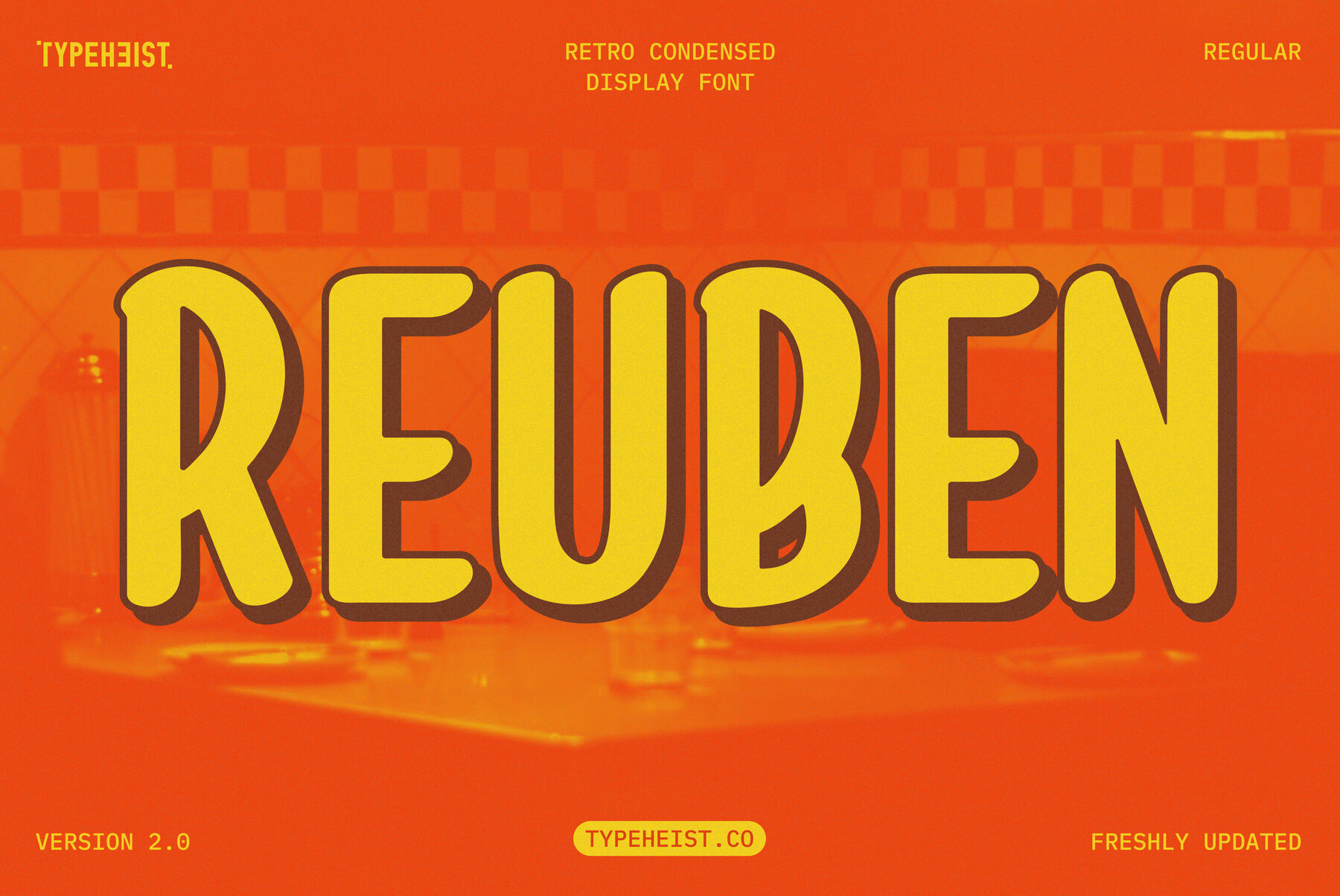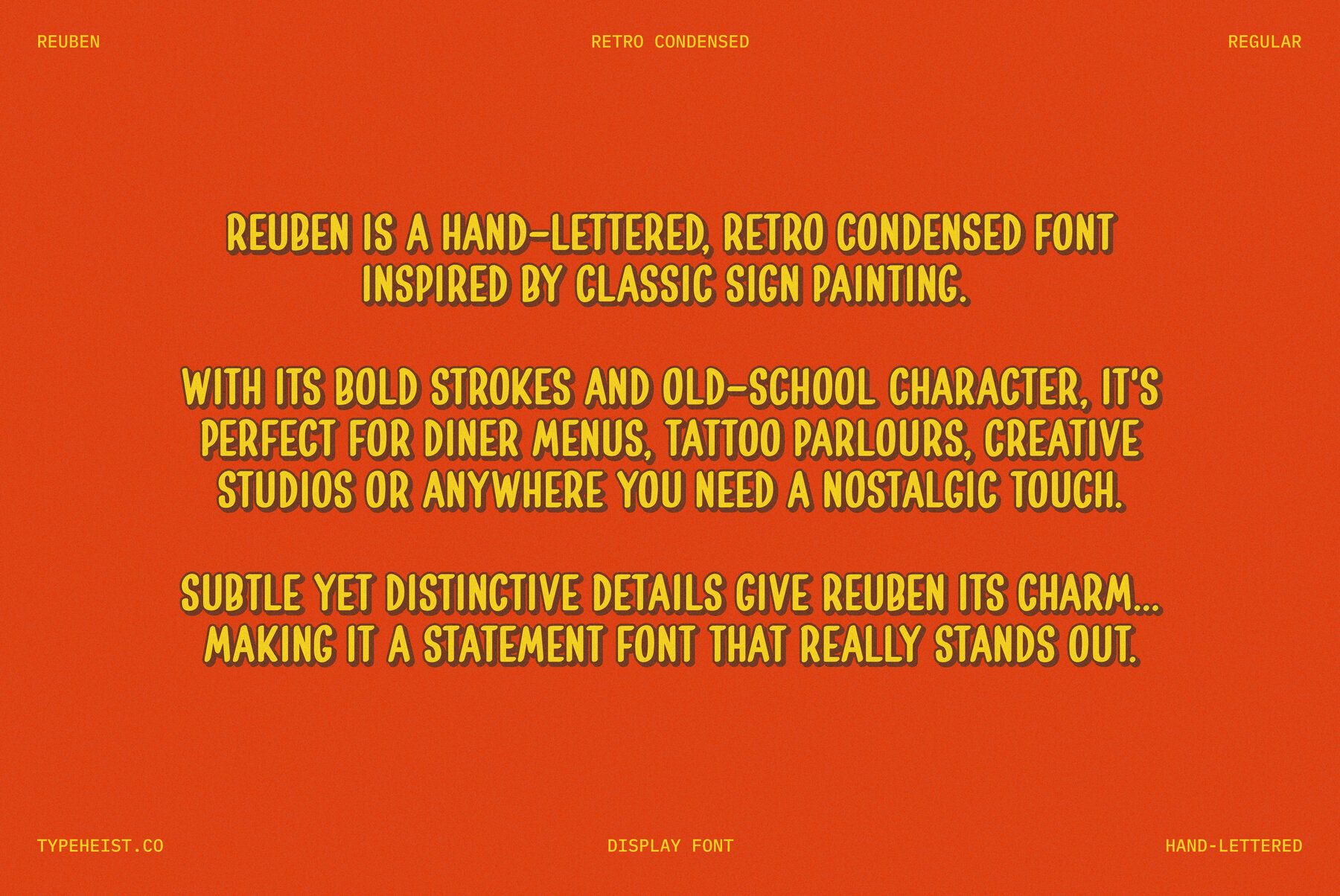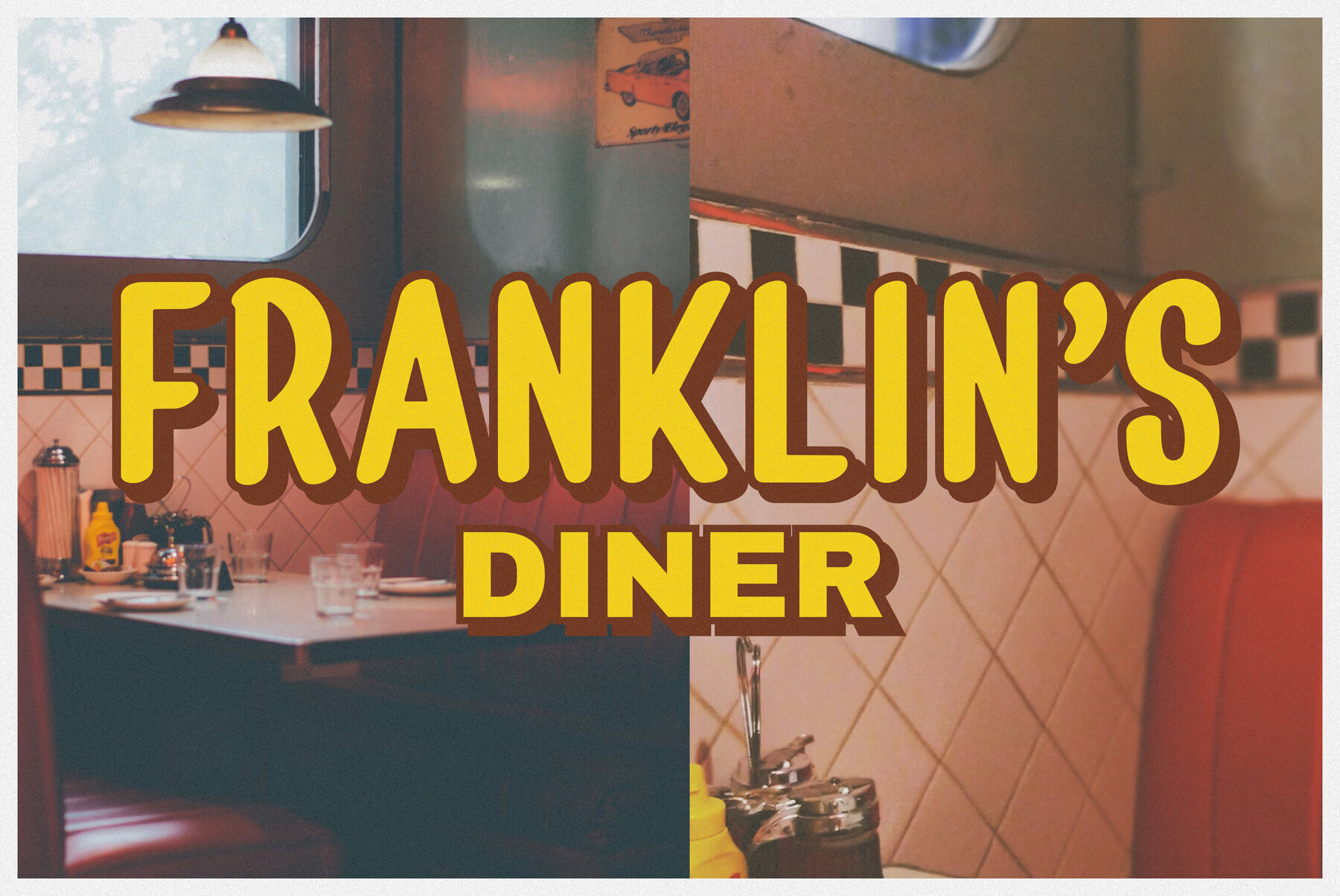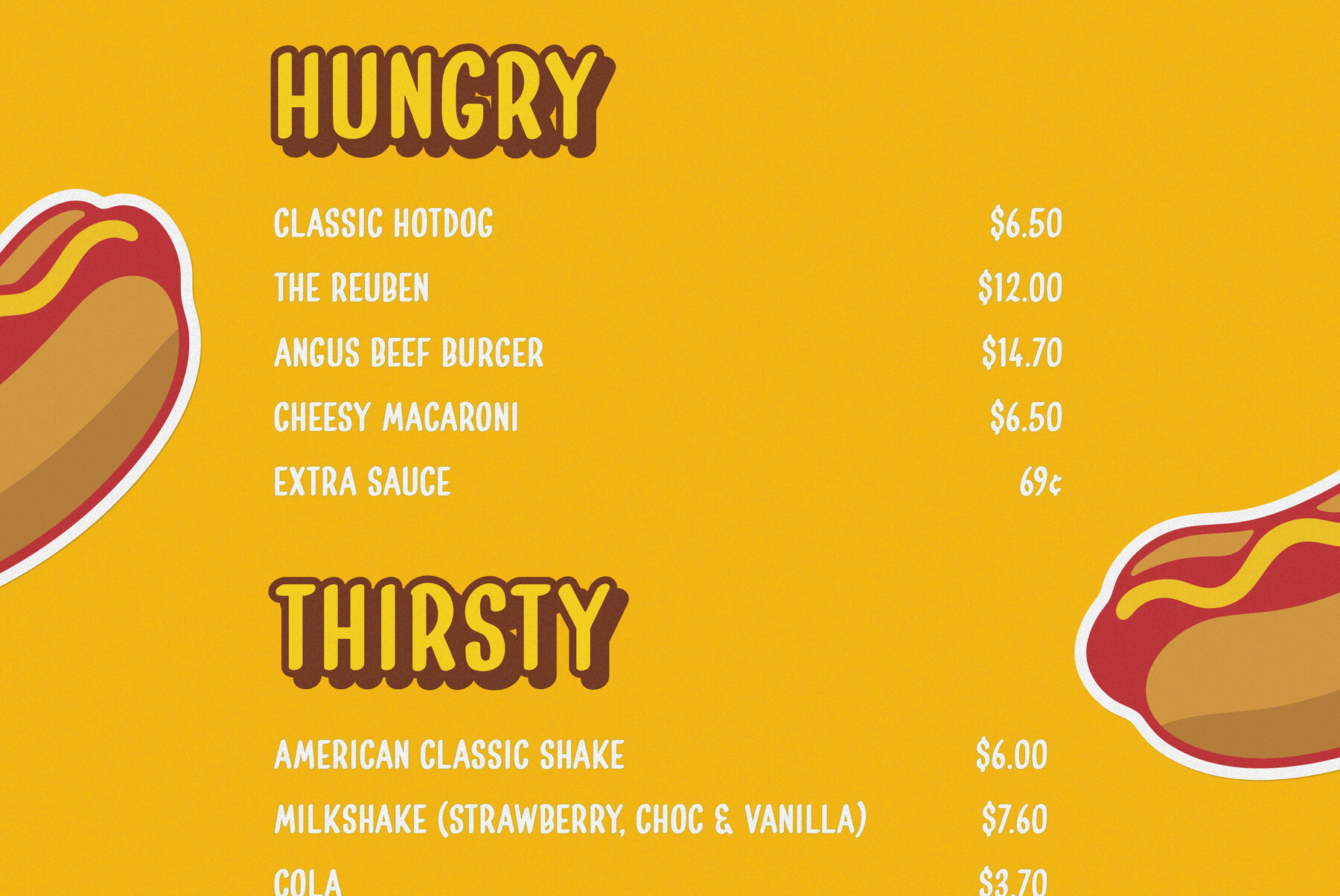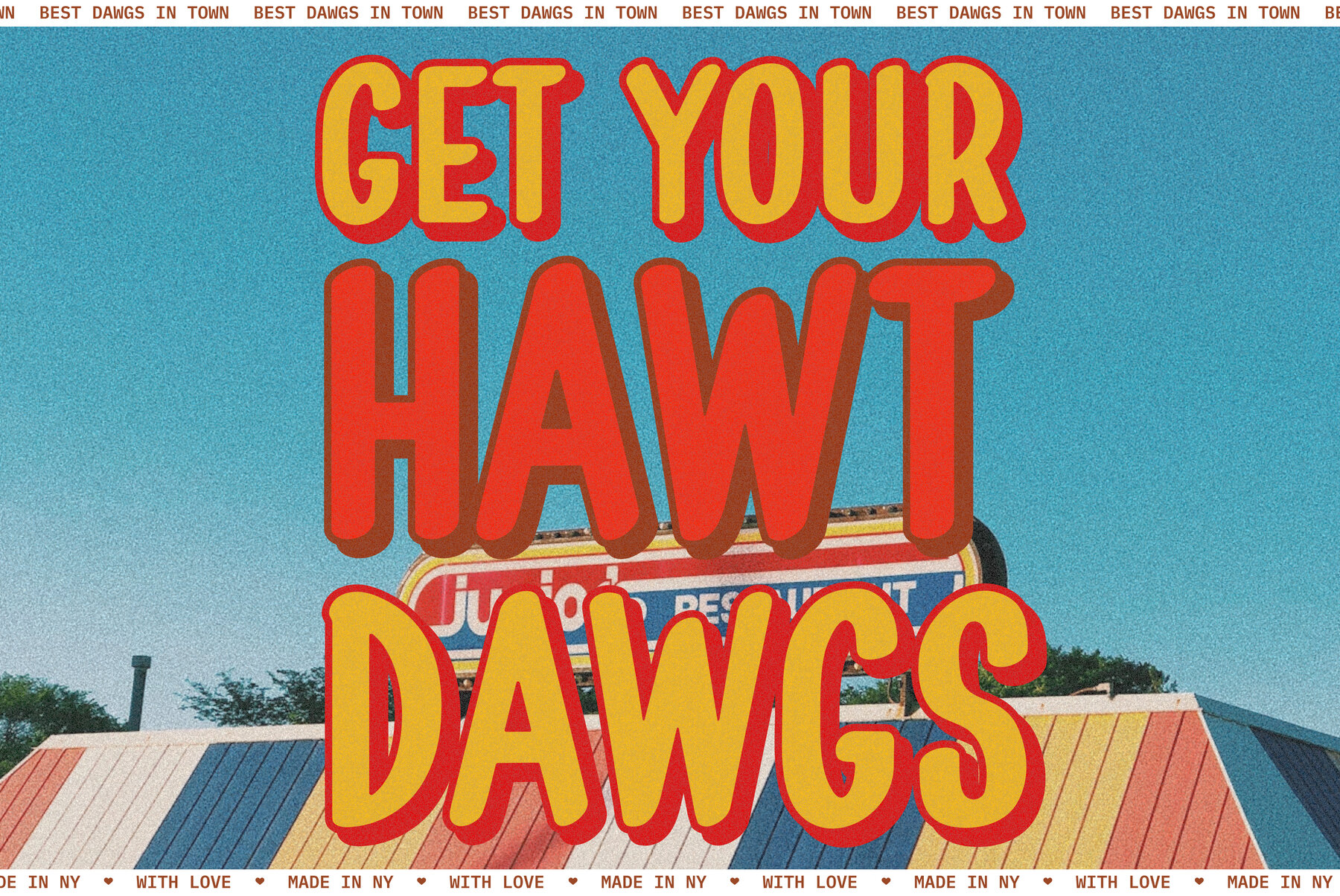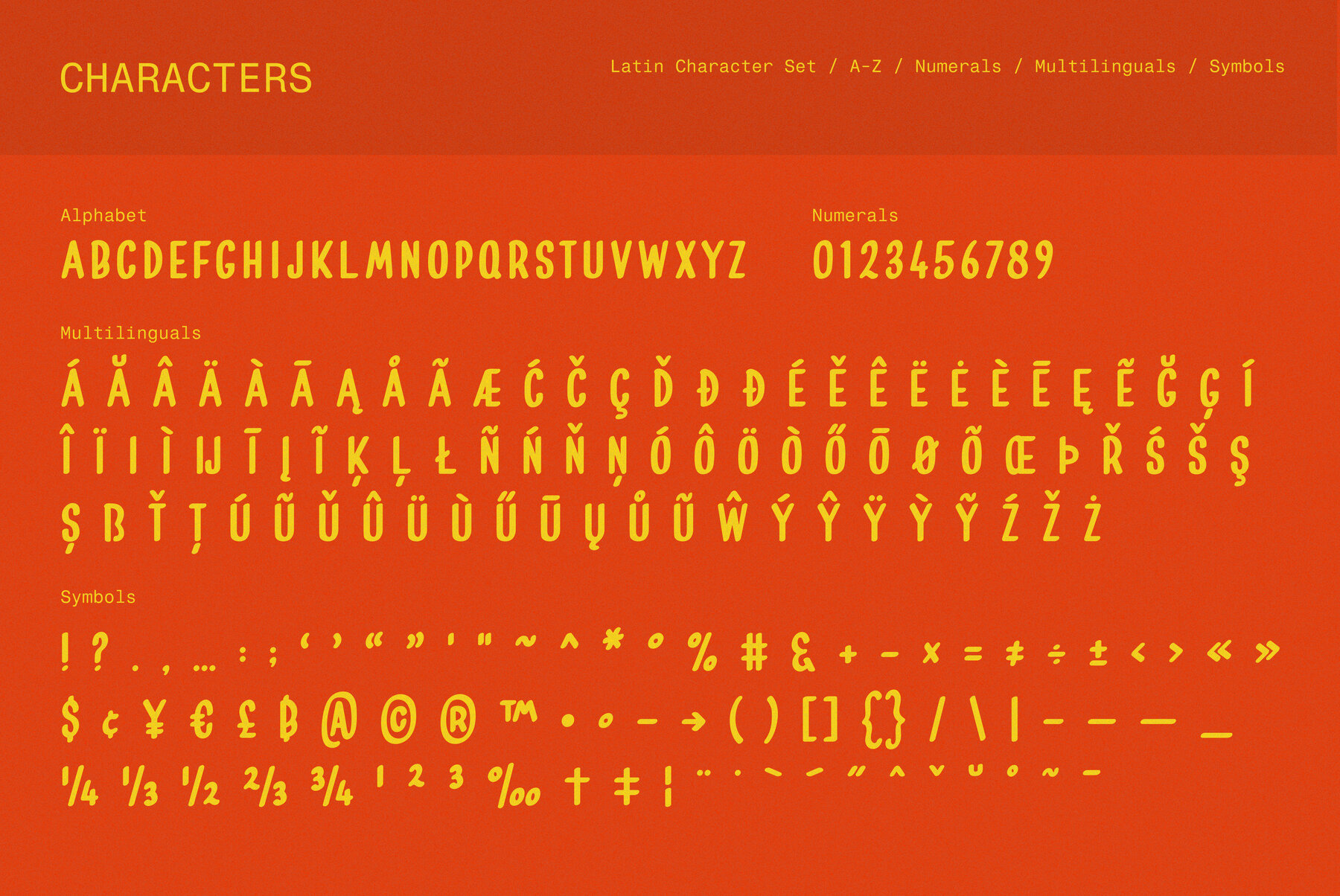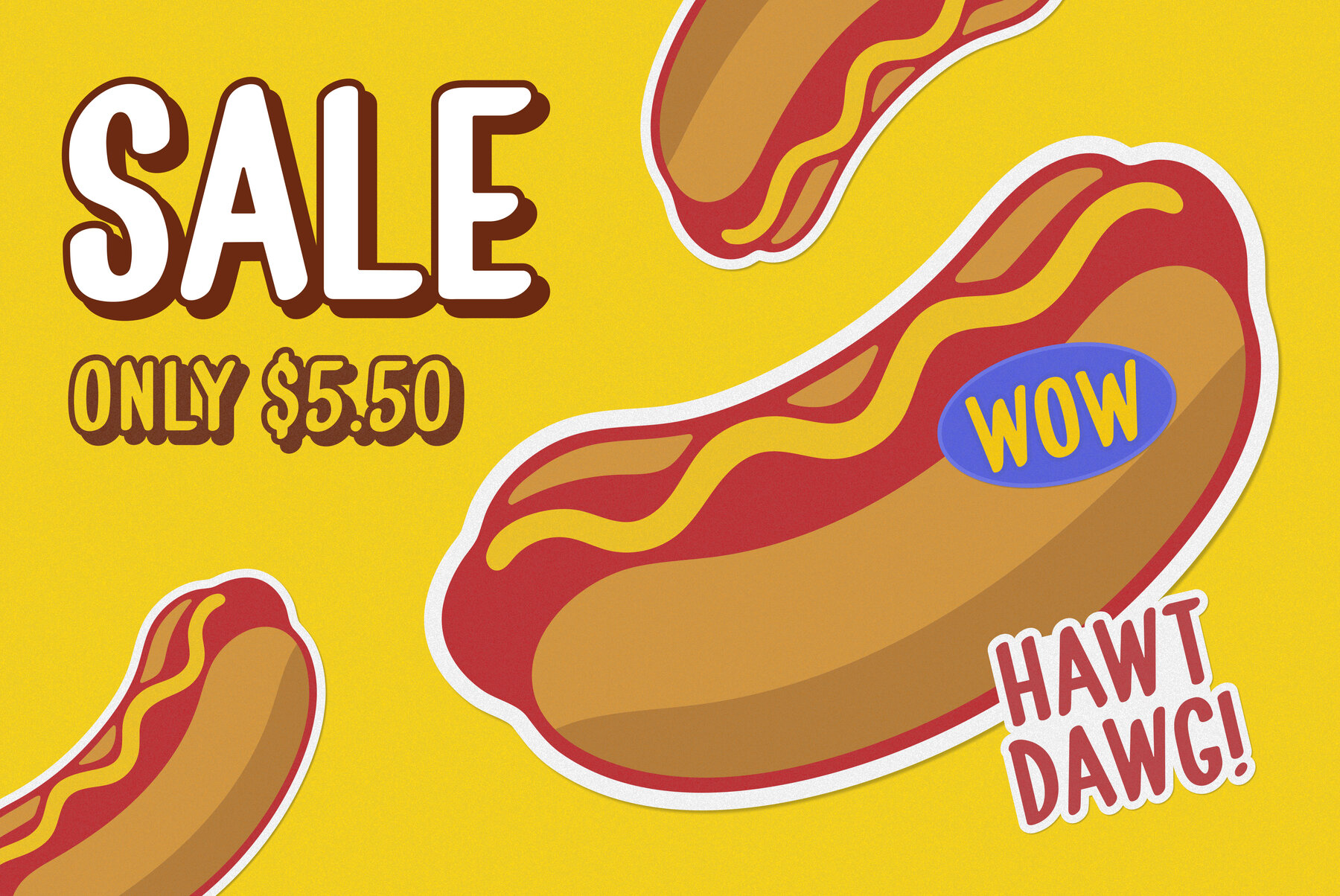
Reuben
Reuben is a hand-lettered, vintage condensed font with an old school sign painted feel. Perfect for tattoo parlors, menus, creative services or anywhere you need that retro touch. The subtle but unique features make reuben a bold and distinctive statement font.